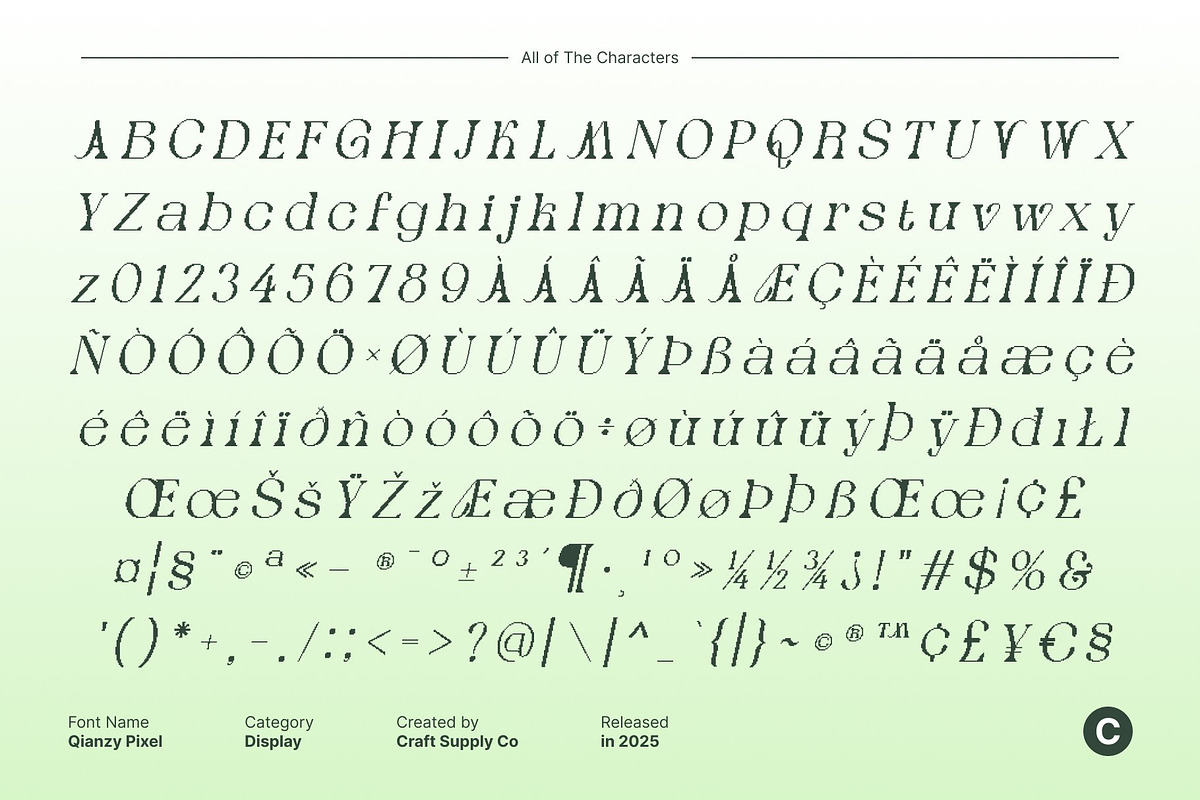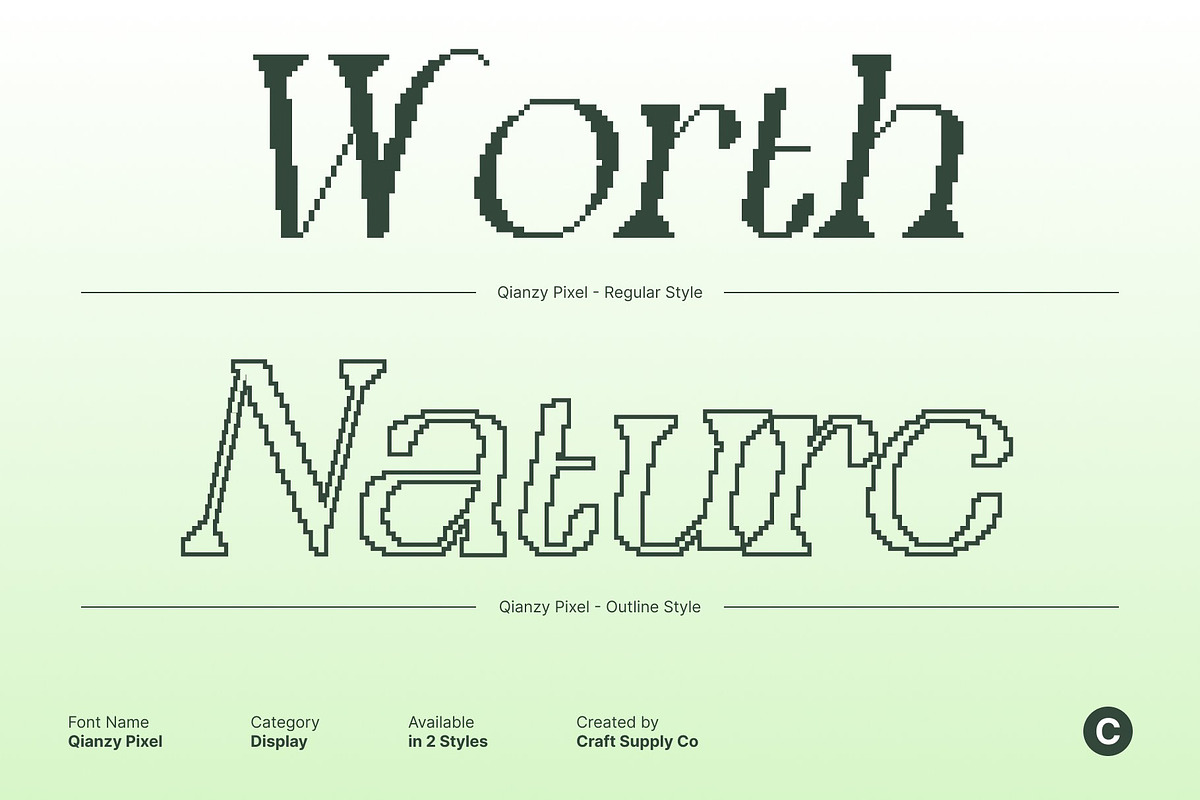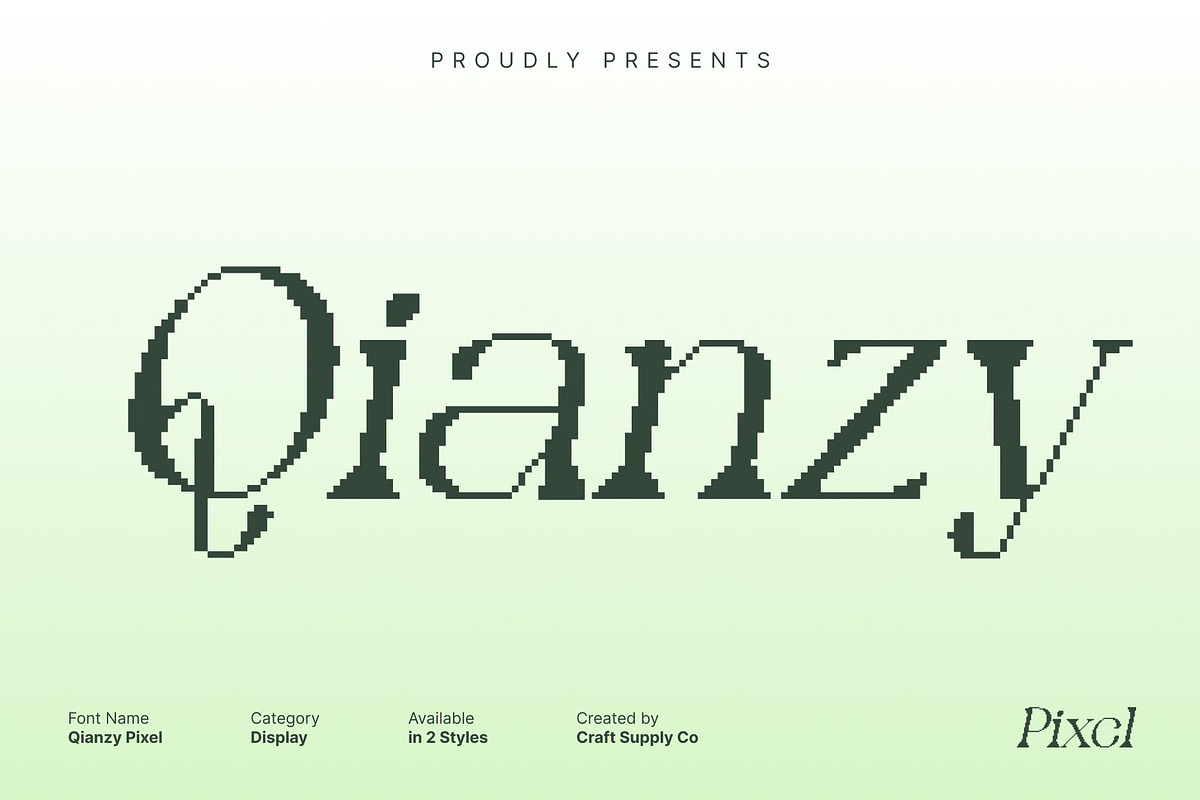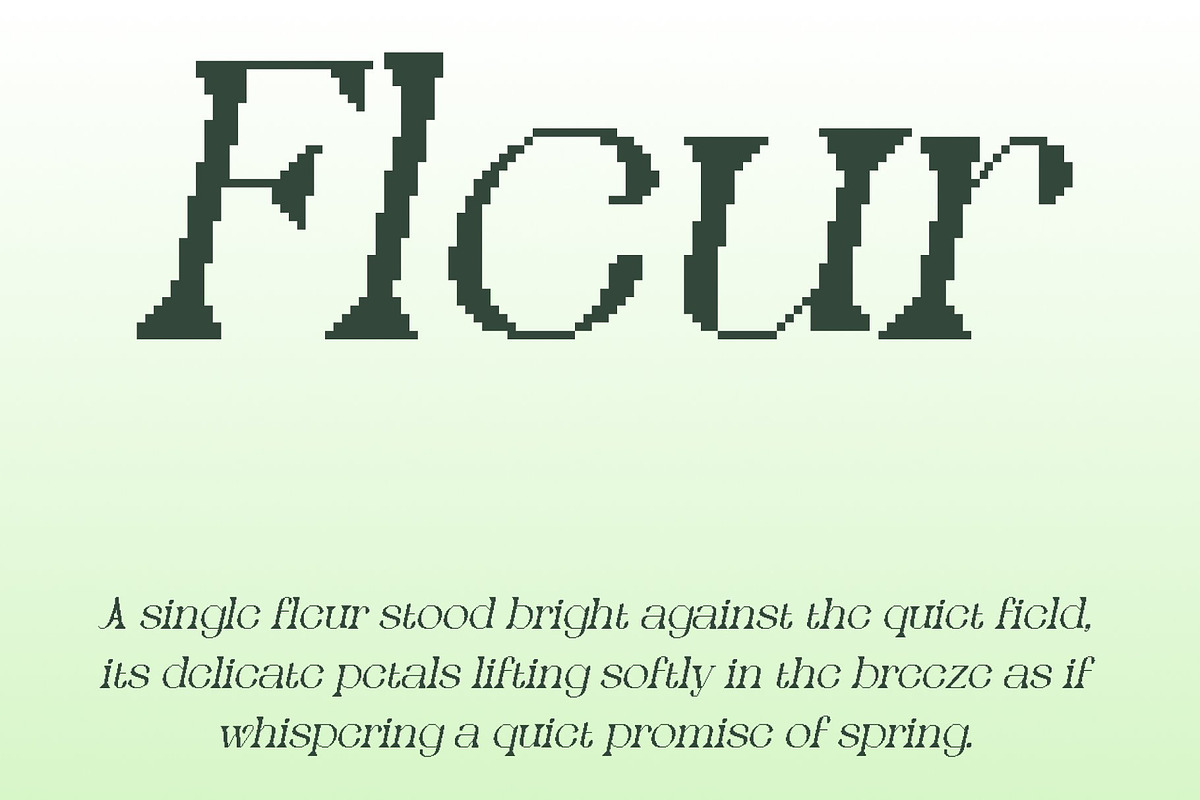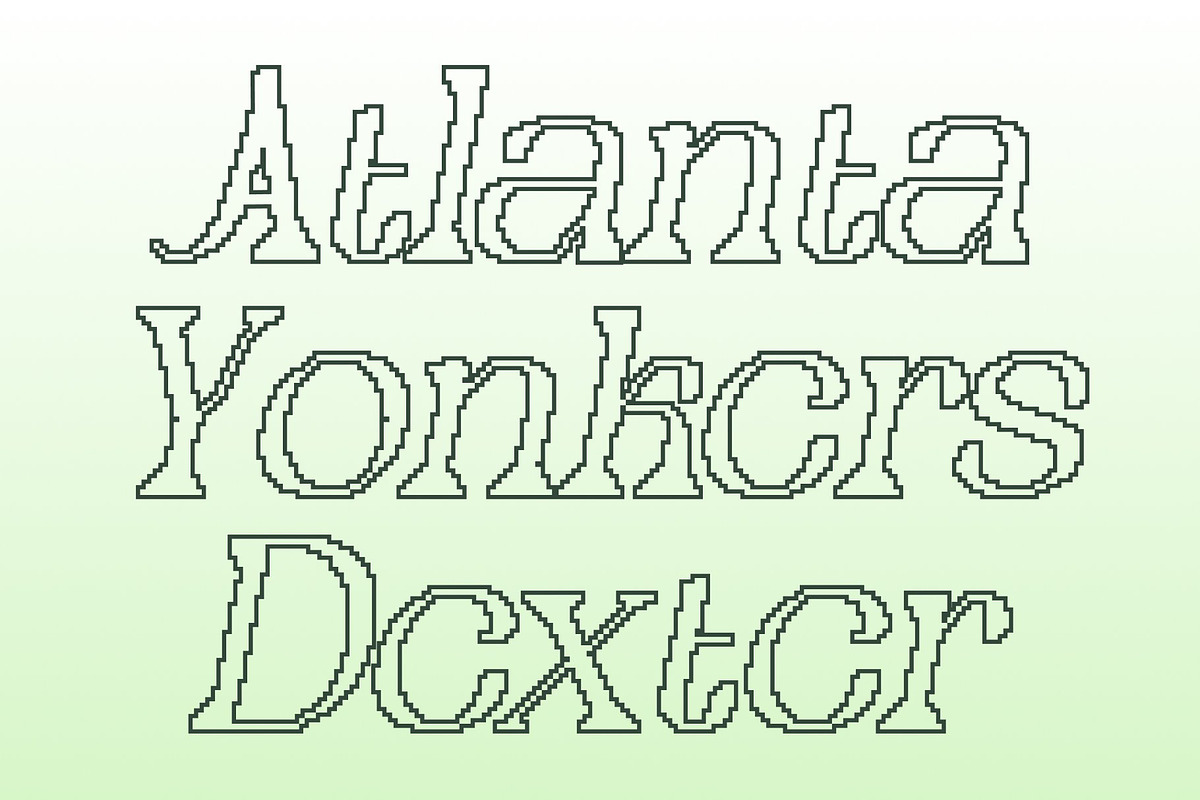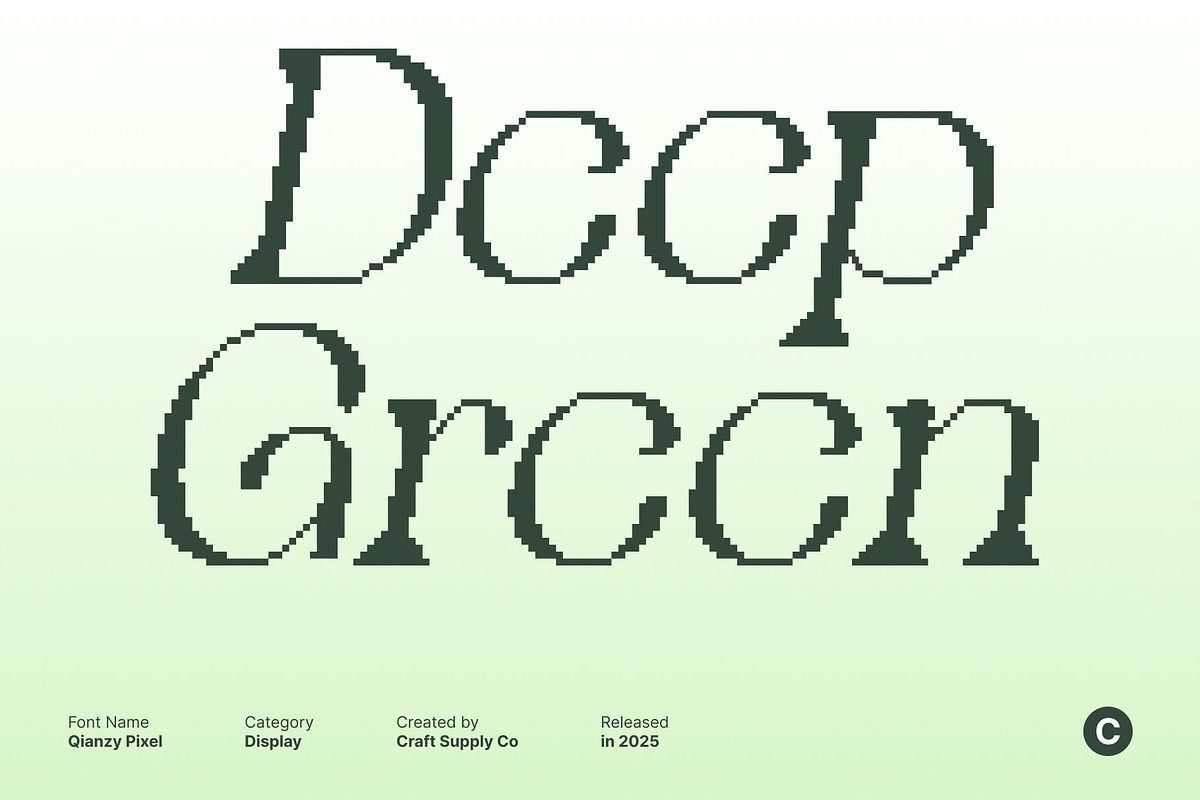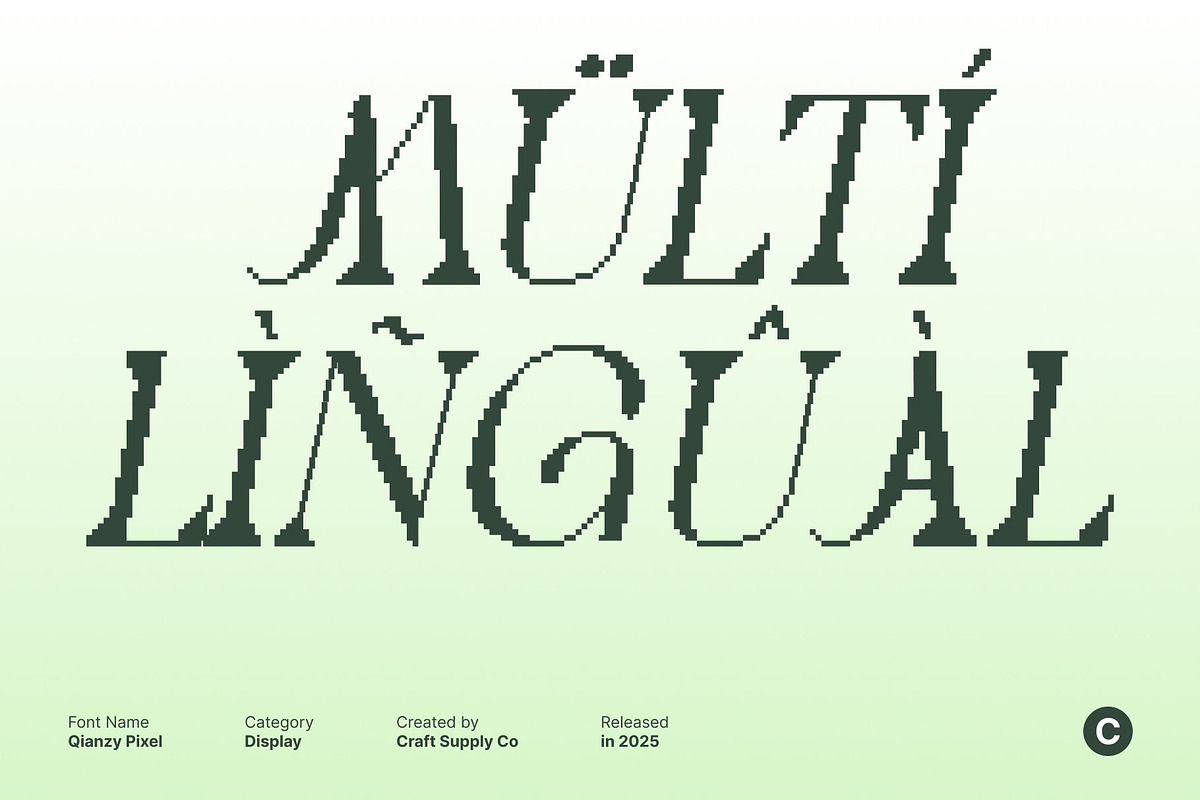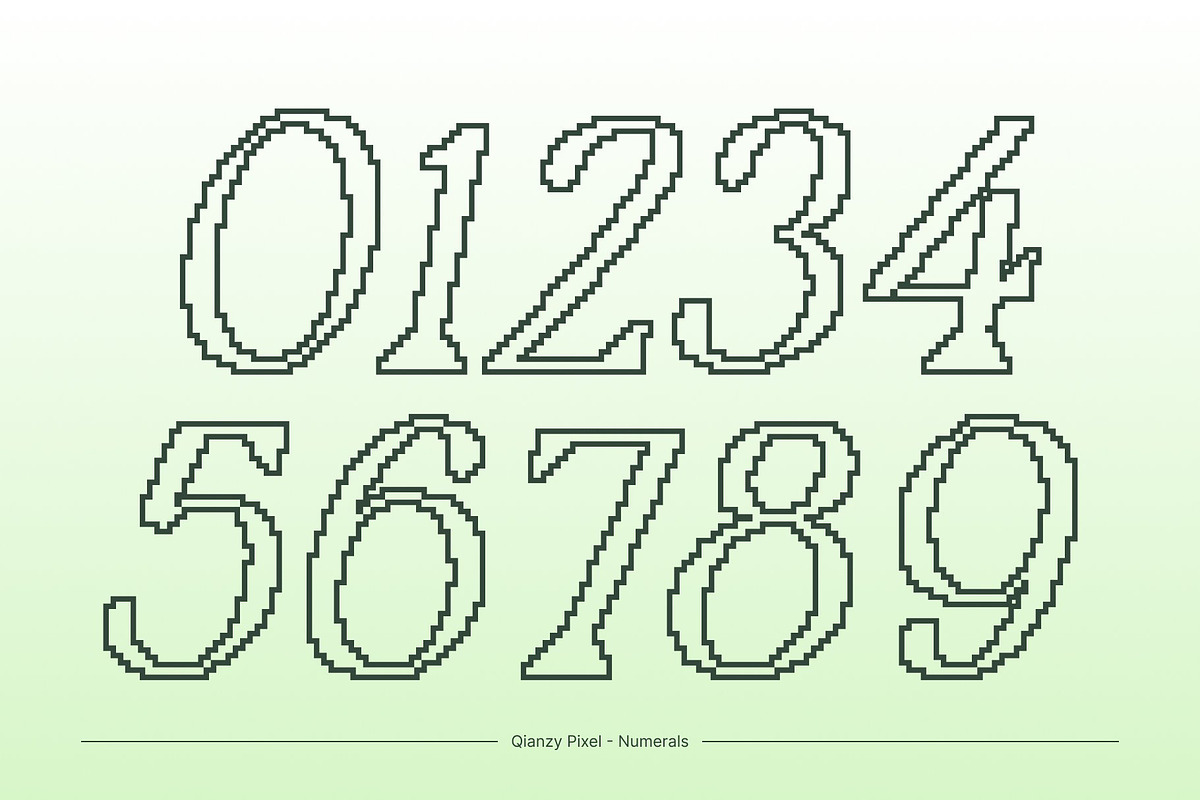
Qianzy Pixel
Qianzy Pixel – Elegant Serif with Refined Curves and Modern Pixel Style
Renaissance Elegance Meets Modern Refinement This is an elegant serif font inspired by timeless Renaissance letterforms. Its refined curves and balanced proportions create a sophisticated, high-end appearance, making it ideal for designers seeking classic elegance with contemporary relevance. Perfect for advanced book layouts, editorial design, or luxury branding, Qianzy Pixel conveys professionalism and artistic finesse in every character.
Graceful Curves for a Polished and Sophisticated Look The font’s gently flowing curves and precise serif detailing bring a sense of harmony and refinement to your design. Each letter maintains excellent readability while projecting a stylish and elevated aesthetic. Its structured elegance ensures versatility, allowing it to enhance both traditional print and modern digital compositions with ease.
Pixel Texture for a Trendy, Digital Twist This font incorporates a subtle pixel effect that adds contemporary digital flair to its classic forms. The pixel texture modernizes the traditional serif, giving it a trendy, stylistic edge perfect for digital design, web layouts, and tech-inspired branding.
Perfect for Editorials, Packaging, Branding, and Digital Projects This font excels across both print and digital applications. From luxury packaging and high-end editorial layouts to sleek digital branding, it balances timeless sophistication with modern pixelated style. Its elegant serifs, refined curves, and digital twist make it a standout choice for projects that aim to merge tradition with contemporary, stylish innovation.
- Qianzy Pixel Regular
- Qianzy Pixel Outline